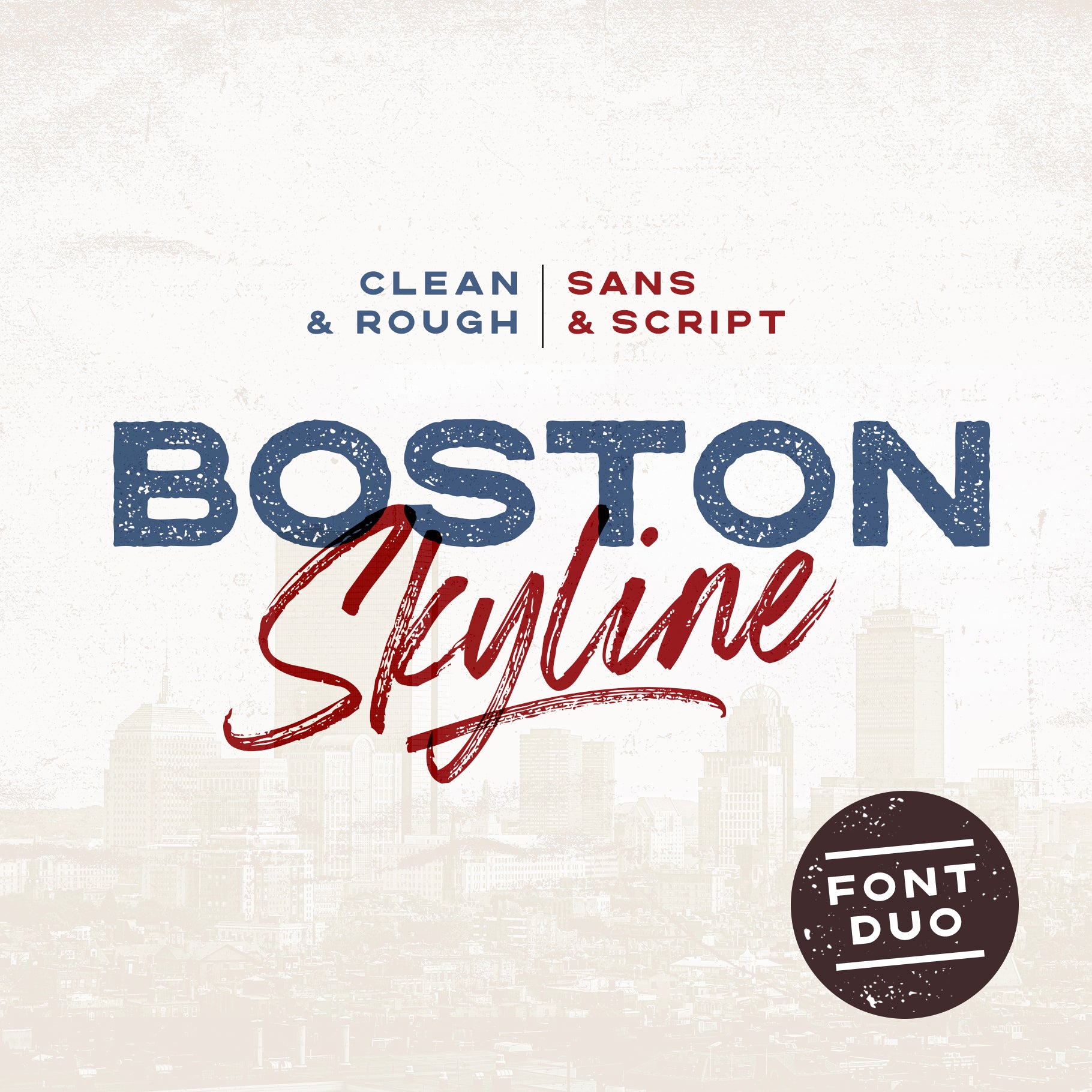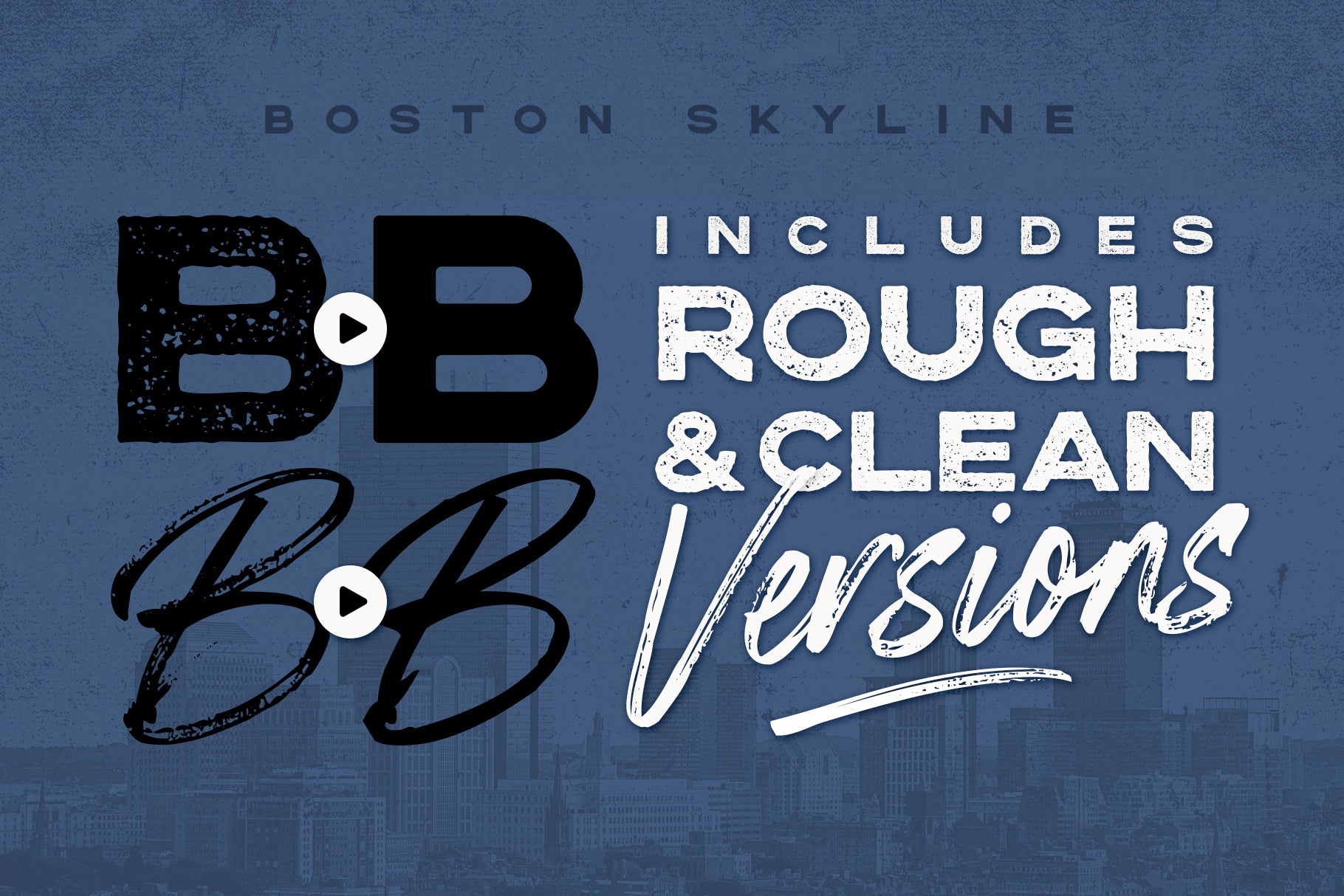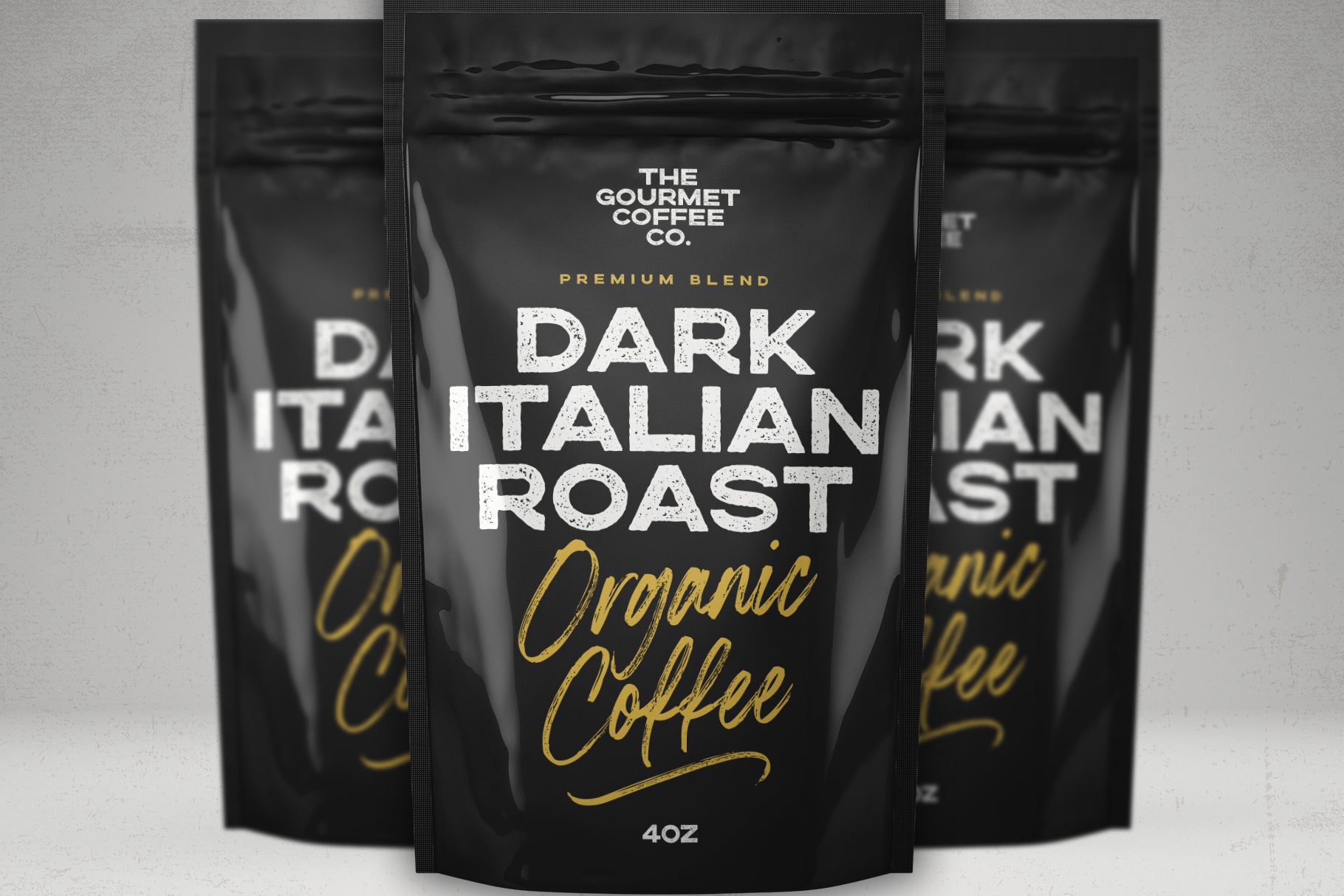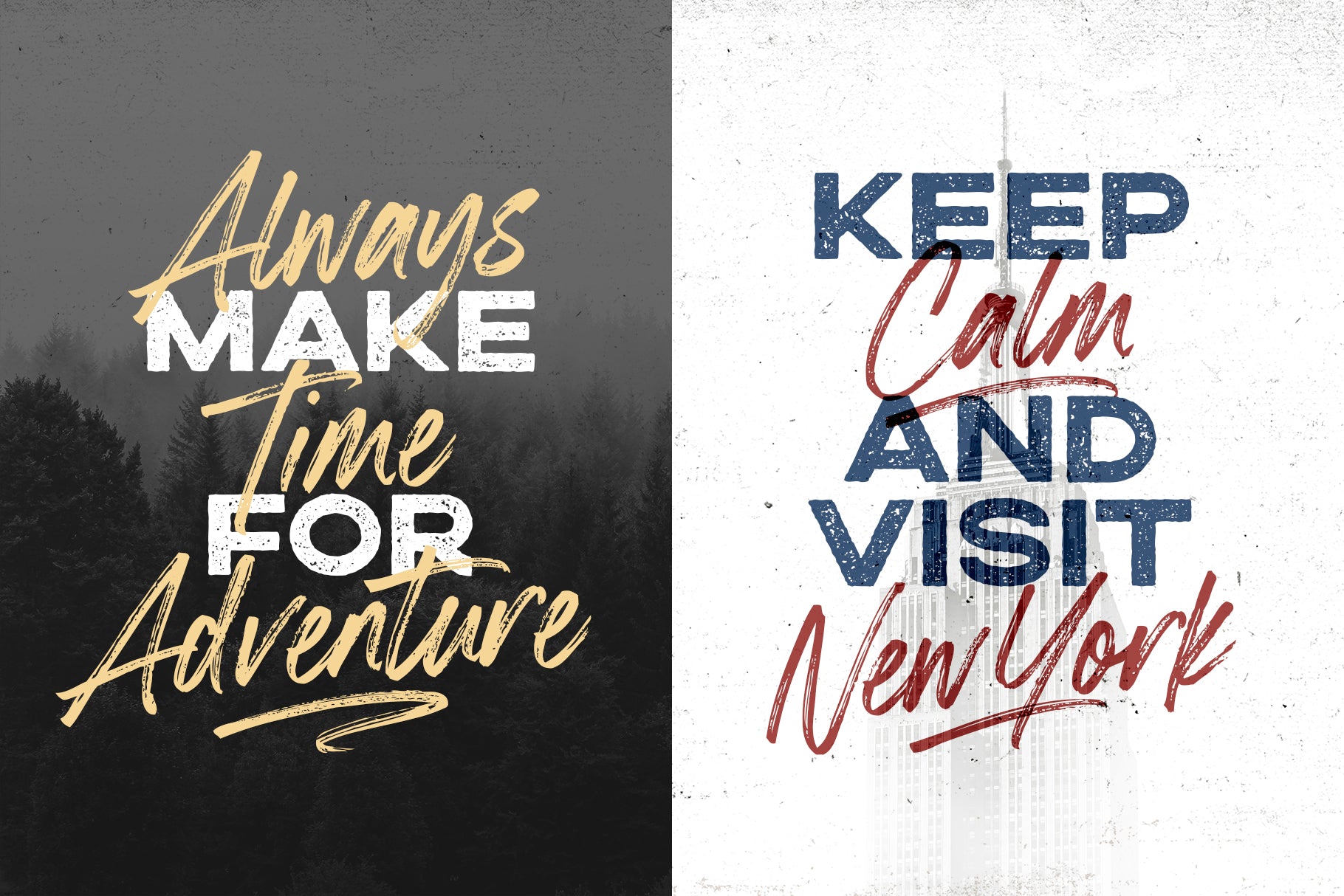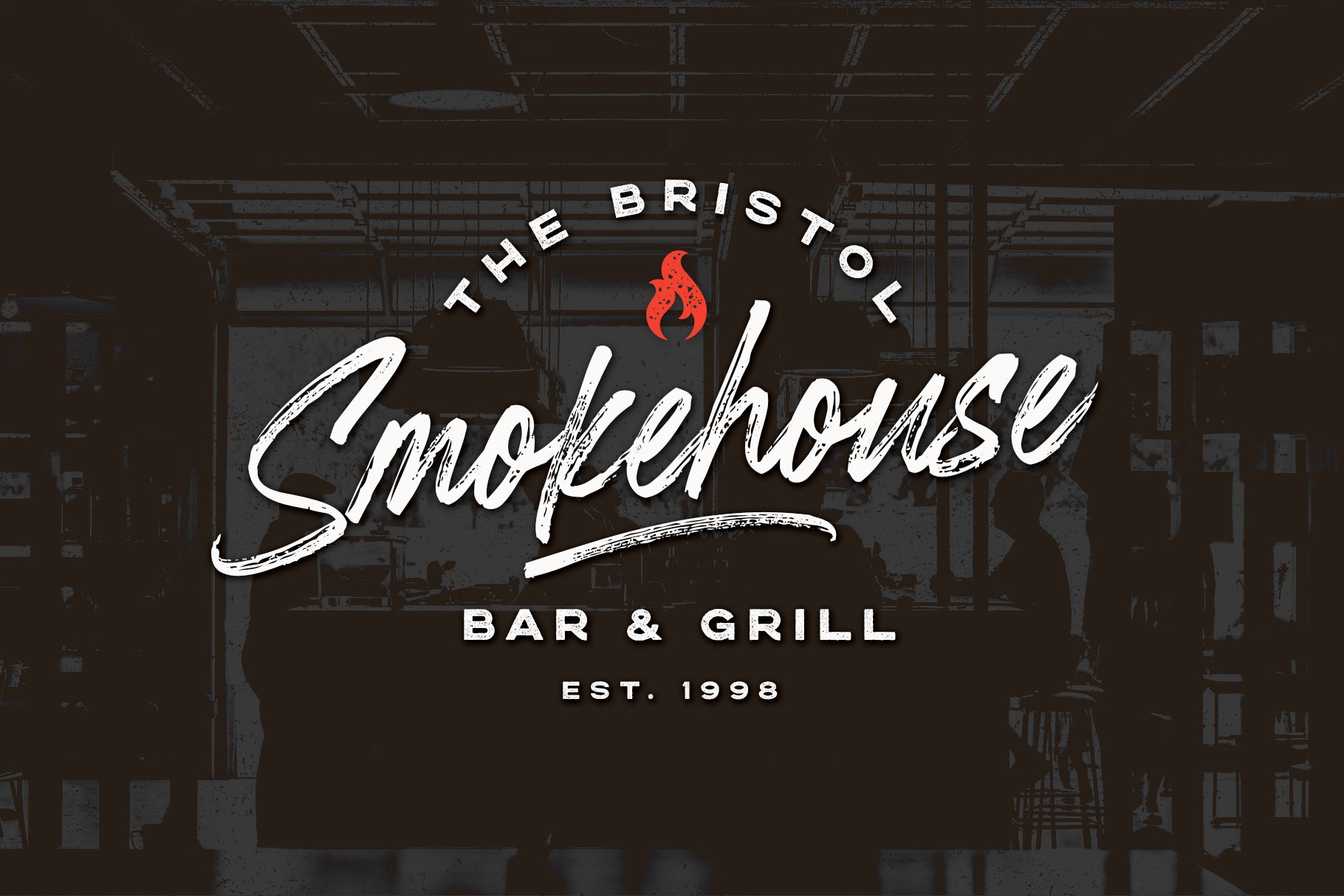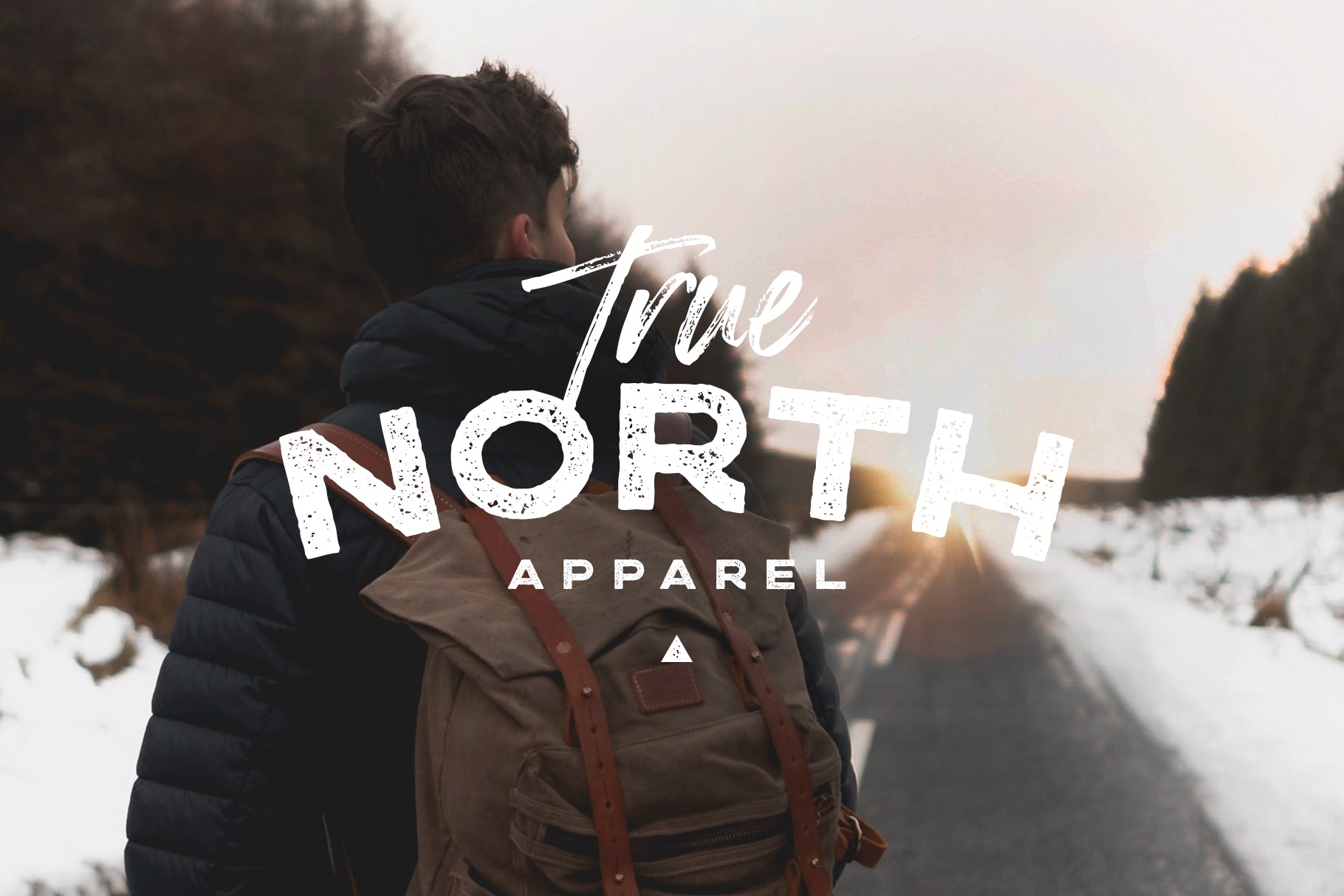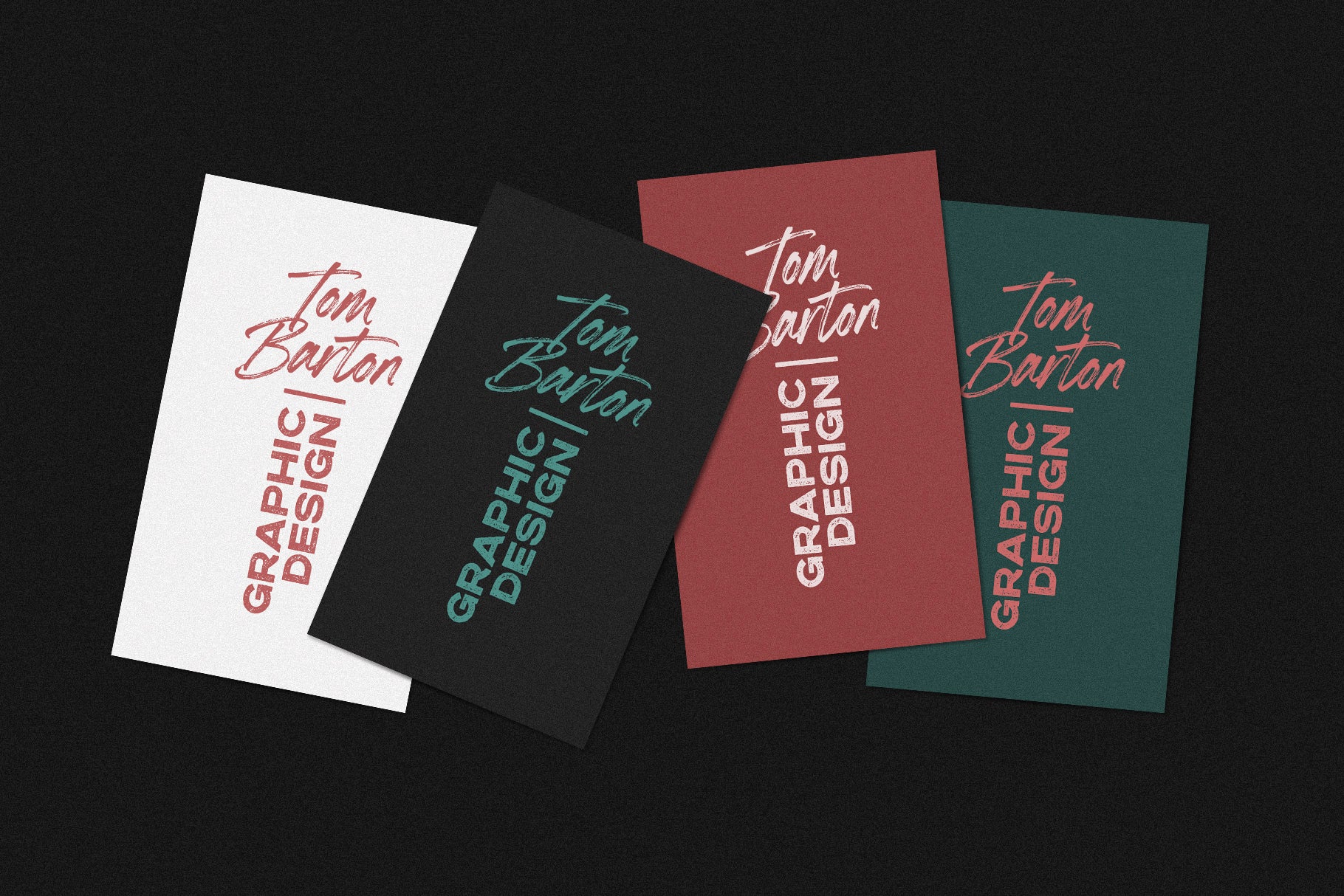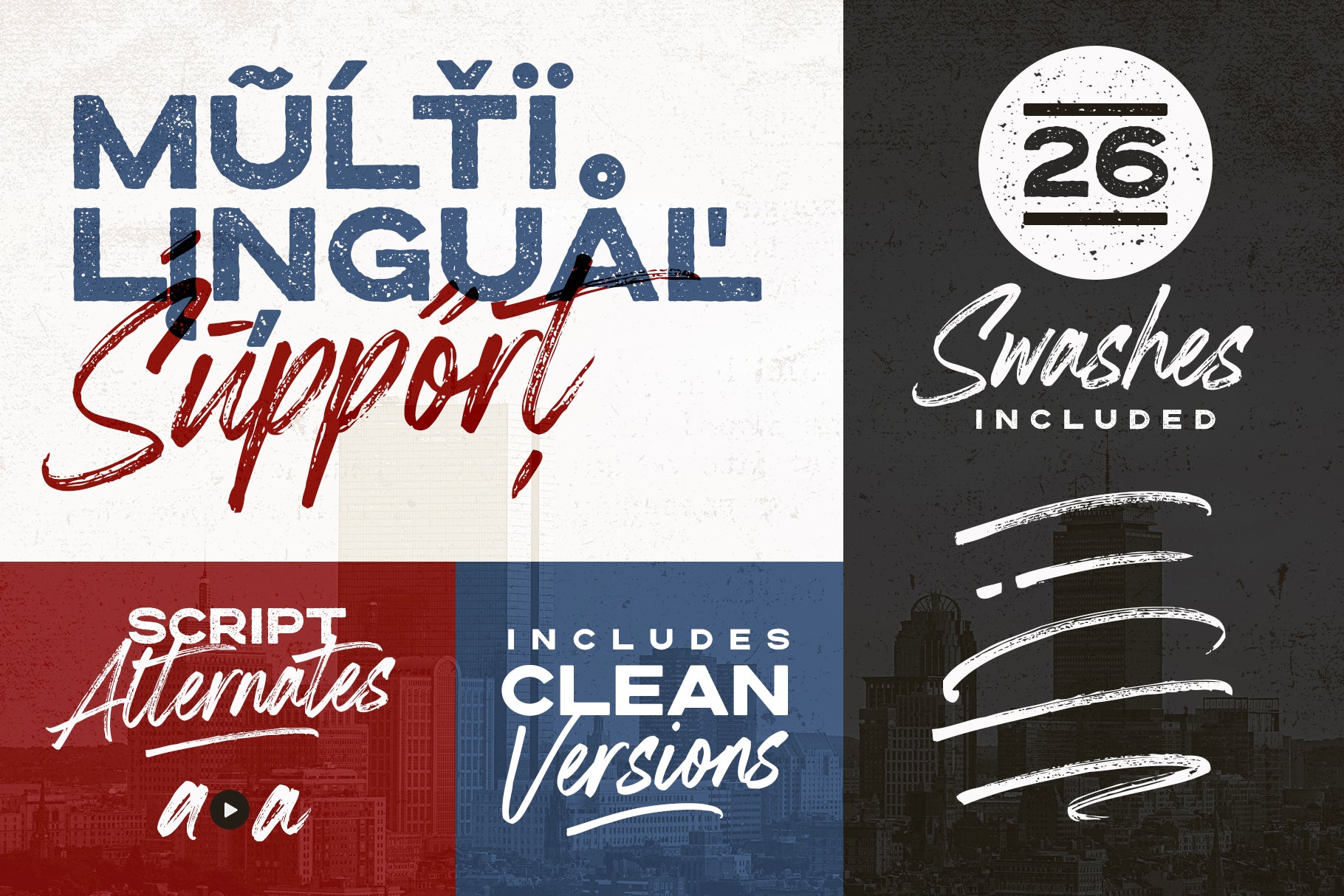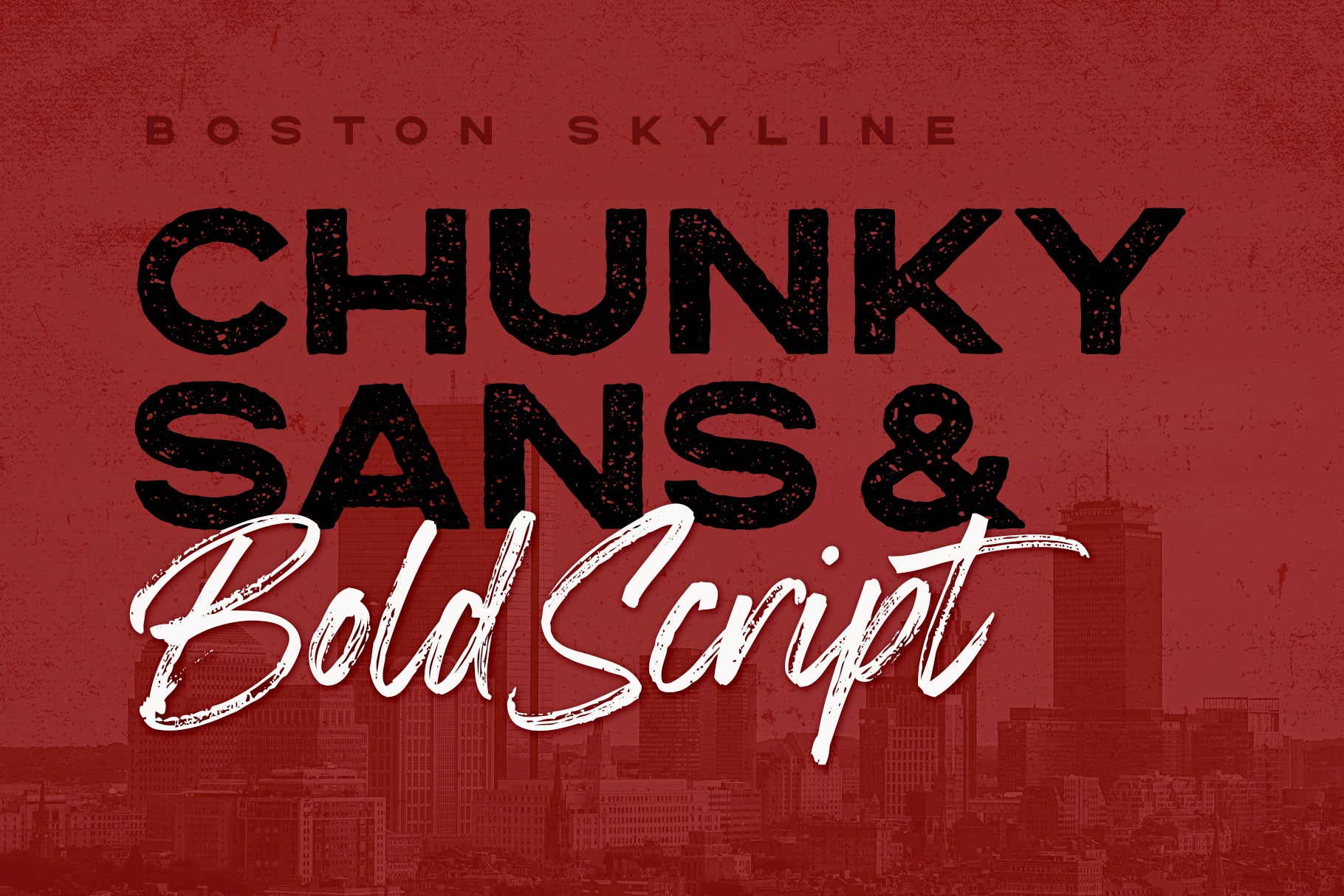
Boston Skyline Font Duo
The Boston Skyline Font Duo includes a hand-crafted combination of premium Sans and Script fonts, featuring Boston Skyline Rough, Boston Skyline Rough Alt, Boston Skyline Sans Rough, and Boston Skyline Swashes, along with clean versions of each font. This package offers a total of eight font files, supporting multiple languages and designed with authentic textures for a bold, rustic appearance.